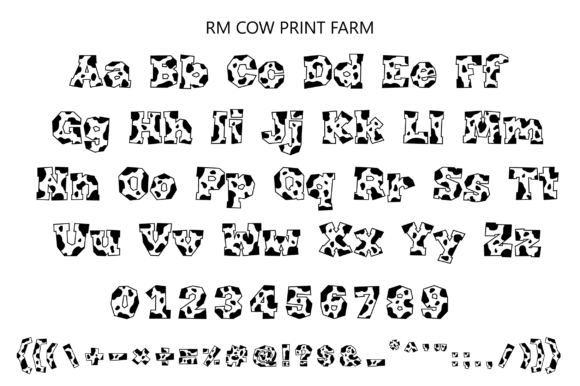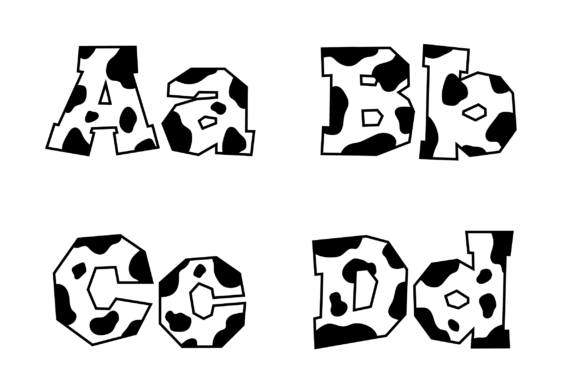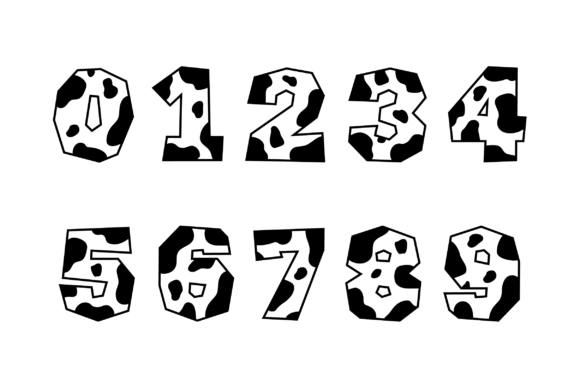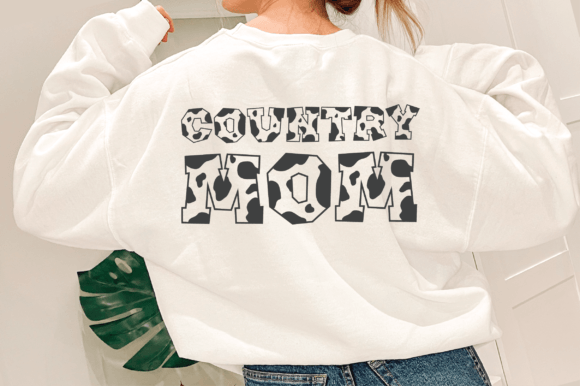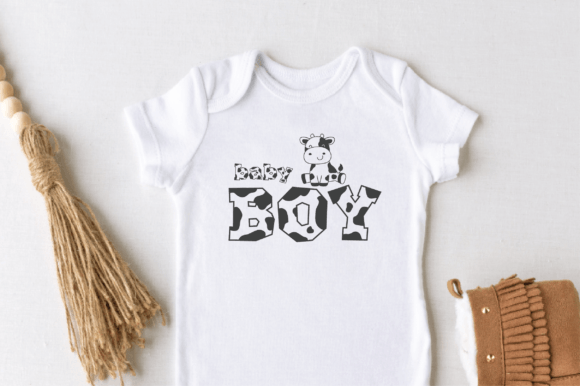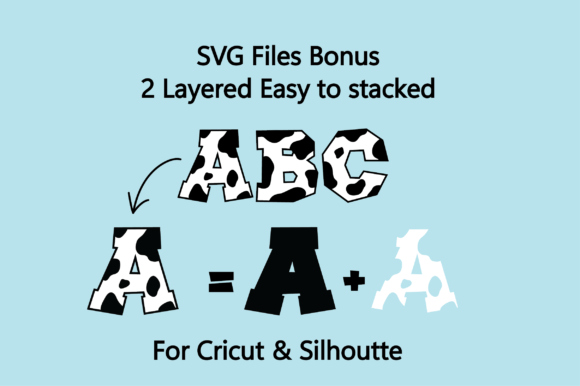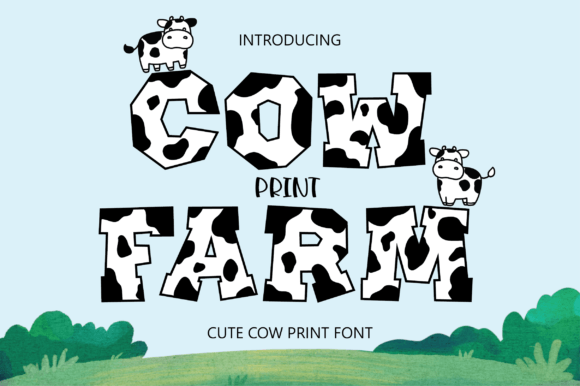
Cow Print Farm Font: Add a Touch of Whimsy to Your Designs
Are you looking for a font that will add a playful and youthful touch to your designs? Look no further than the Cow Print Farm Font! This adorable display font features a cow skin effect that is sure to bring a smile to your face. With its fun and friendly vibe, it’s perfect for a wide range of projects, from farm-themed crafts to playful branding and marketing materials.
What is Cow Print Farm Font?
Cow Print Farm Font is a unique and eye-catching display font that mimics the look of cow skin. With its bold and playful design, it’s sure to grab attention and add a touch of whimsy to any project. The font features a distressed effect that gives it a rustic, farm-fresh feel that’s perfect for designers and crafters who want to add a little bit of country charm to their work.
Key Features of Cow Print Farm Font
- Cow skin effect: The font features a realistic cow skin effect that gives it a unique and eye-catching look.
- Distressed effect: The font has a distressed effect that gives it a rustic, farm-fresh feel.
- Playful and youthful: The font has a fun and playful vibe that’s perfect for designs that need to appeal to a younger audience.
Uses for Cow Print Farm Font
Cow Print Farm Font is a versatile font that can be used for a wide range of projects, including:
- Farm-themed crafts: The font is perfect for crafts and designs that feature a farm or country theme, such as signs, banners, and invitations.
- Playful branding: The font’s playful and youthful vibe makes it perfect for branding and marketing materials that need to appeal to a younger audience.
- Party decorations: The font can be used to create fun and playful party decorations, such as banners, garlands, and signs.
- Digital designs: The font can be used for digital designs, such as social media graphics, blog posts, and website headers.
Tips for Using Cow Print Farm Font
Here are a few tips for using Cow Print Farm Font in your designs:
- Use it sparingly: Because of its bold and playful design, it’s best to use the font sparingly to avoid overwhelming the viewer.
- Pair it with complementary fonts: The font pairs well with simpler fonts, such as sans-serif fonts, to create a visually appealing contrast.
- Experiment with colors: The font looks great in a variety of colors, so don’t be afraid to experiment and find the perfect color scheme for your design.
Cow Print Farm Font is a fun and playful display font that’s perfect for designers and crafters who want to add a touch of whimsy to their designs. With its cow skin effect and distressed finish, it’s sure to grab attention and bring a smile to your face. Whether you’re working on a farm-themed craft project or a playful branding campaign, this font is sure to be a hit. So why not give it a try and see how it can add a touch of country charm to your designs?